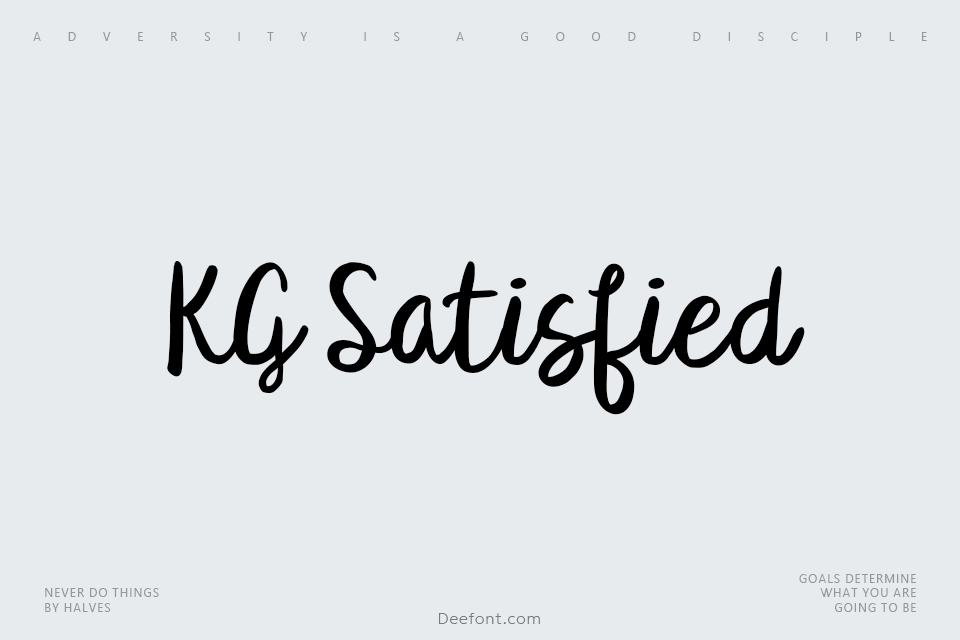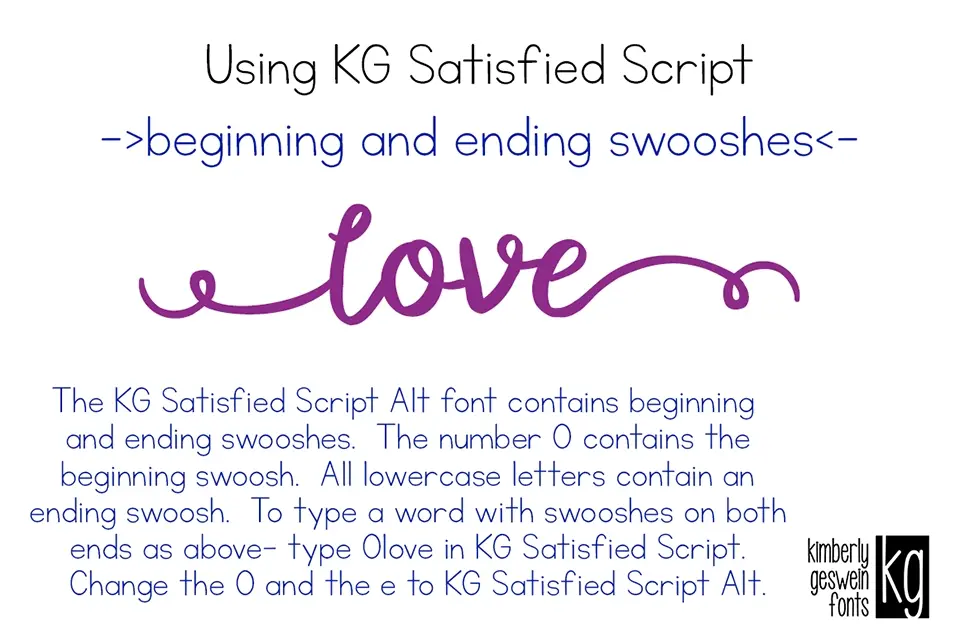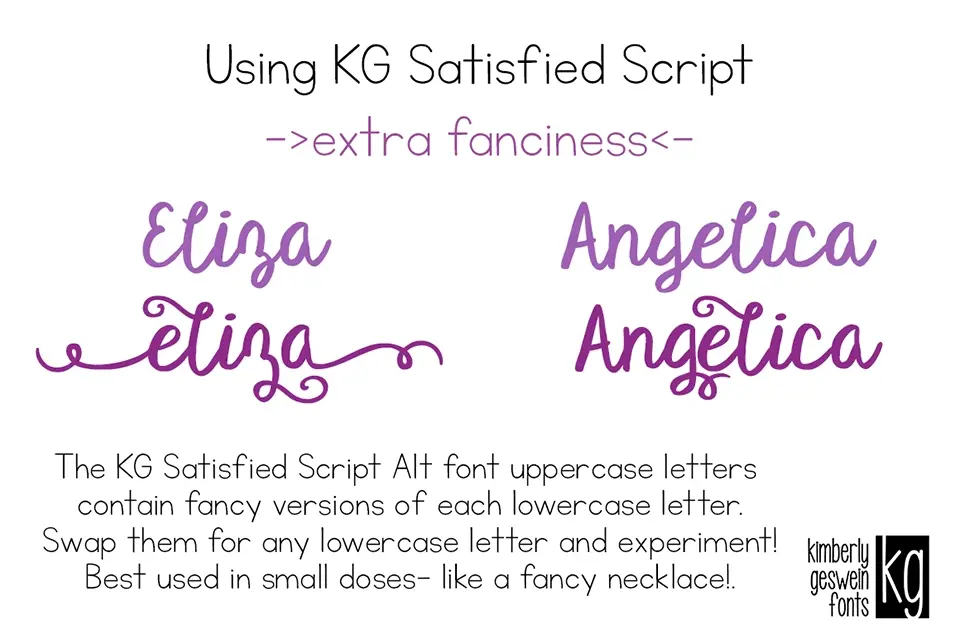
KG Satisfied Script Font
KG Satisfied Script is a charming cursive font family created by Kimberly Geswein in 2016. This elegant script typeface features two complementary styles that work together to produce a customized handwritten aesthetic. Perfect for personal projects, invitations, greeting cards, and creative designs, the font delivers a warm, organic appearance with natural calligraphic strokes. With 344 glyphs and support for most Latin-based languages, it brings a personal touch to your typography while maintaining professional quality and readability.